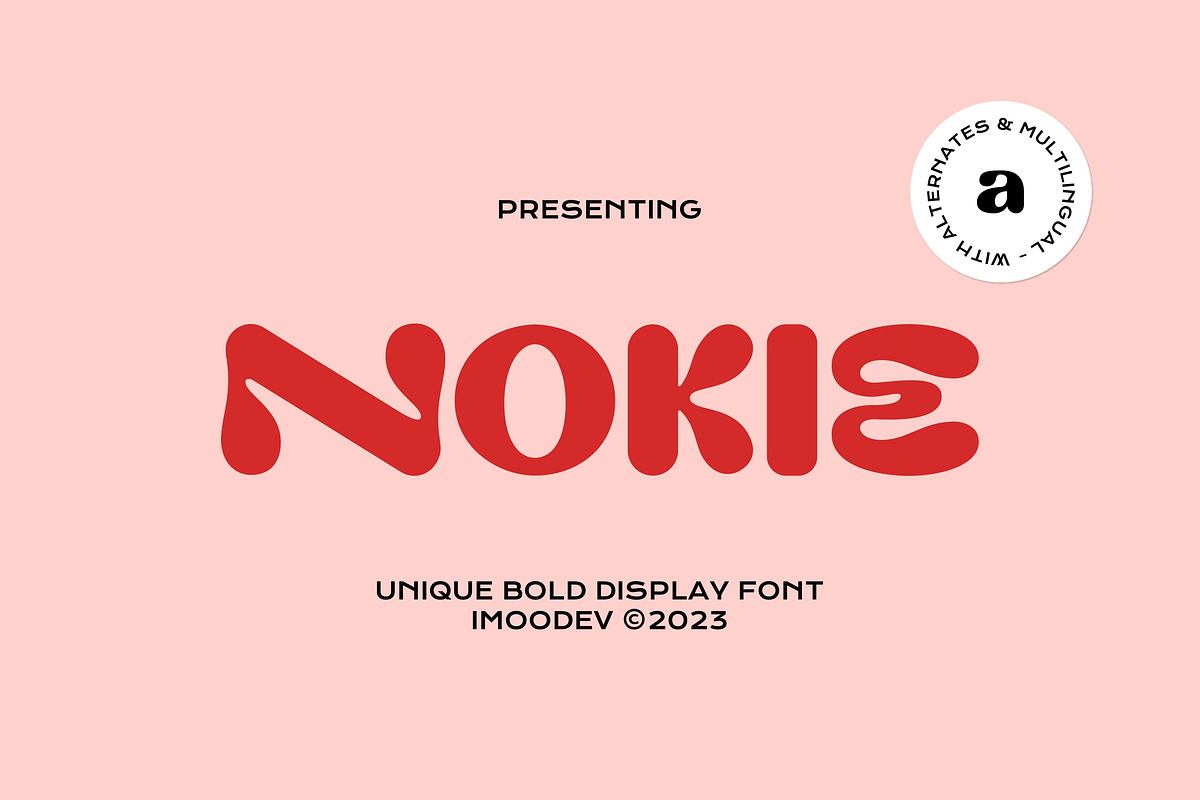
Nokie - Unique Bold Display Font Free Download
You must purchase this font for commercial use. However, you can download Nokie - Unique Bold Display Font Free Download for testing purposes. Nokie is a striking, bold display font designed to grab attention with its unique and modern letterforms. Perfect for headlines, logos, posters, branding, and any project that requires a strong visual impact, this font offers boldness and creativity in every stroke.
The geometric and strong character of Nokie makes it ideal for dynamic designs that need to stand out. Whether you're creating a powerful brand identity, working on an eye-catching marketing campaign, or designing an impactful poster, this font will bring strength and originality to your typography.